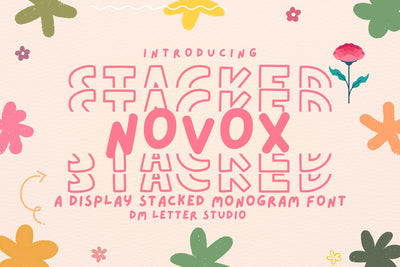
Novox Stacked Monogram Regular
Novox Stacked Monogram Regular – Bold Layered Monogram Font
Novox Stacked Monogram Regular is a bold and stylish monogram font designed with a distinctive stacked layout. This font exudes confidence and structure, perfect for creating standout initials, branding elements, logos, and personalized products. Its balanced weight and sharp edges give it a modern, professional appearance while maintaining an artistic flair.
Stacked Monogram Style: Letters are arranged vertically for a clean, structured look—ideal for monograms and branding.
Modern Bold Typeface: Designed with strong lines and clear curves, making it visually impactful.
Perfect for Personalized Projects: Use it on custom merchandise, wedding monograms, logos, business cards, and more.
Clean and Versatile: Simple yet eye-catching—suitable for both elegant and bold design styles.